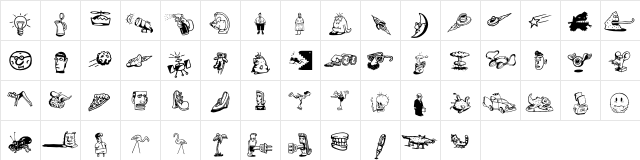
FontooniesITC Regular
Design Context for FontooniesITC Typeface
FontooniesITC is a composed and adaptable typeface that performs quietly and consistently across a wide range of design contexts.